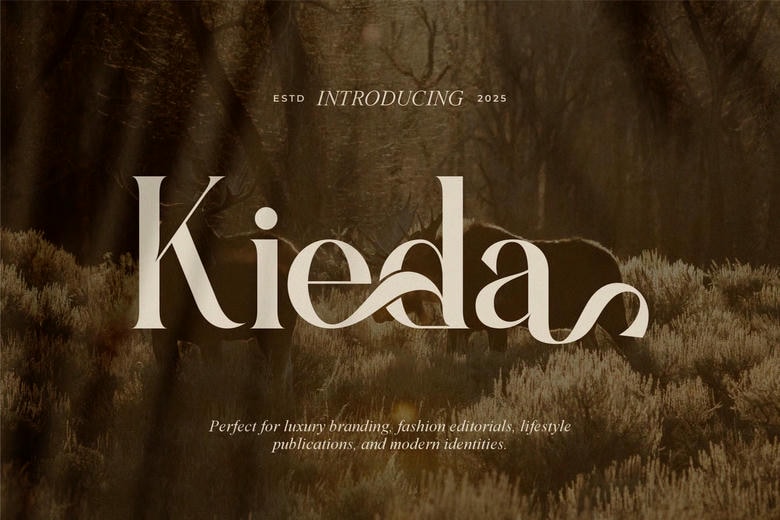
Kieda Font
Kieda is a modern and elegant typography of all branding and logo styles. It is a beautiful character, modern and classy Serif font. It is an appropriate font to use in designing invitation cards, trendy logos, movie titles, movie names, business cards, book titles, brand names, and other designs.
Kieda Serif is a serif typeface that is smooth and exudes the moment and sophistication. This font is an ideal match to any project due to its stylish ligatures.
Kieda Serif Font